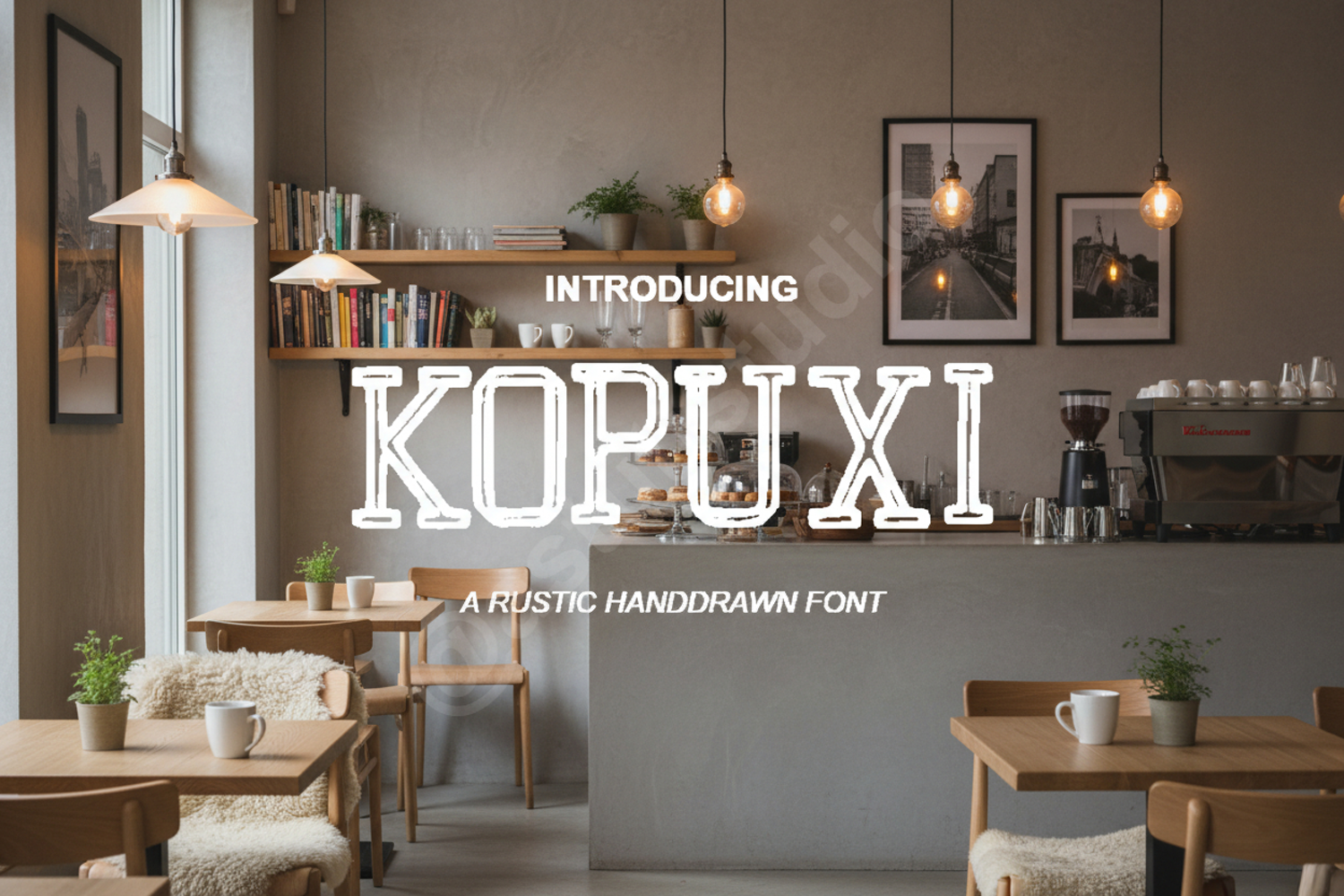
Kopuxi - Modern Sophisticated Sans-Serif Typeface
Kopuxi
Kopuxi is a premium, high-end sans-serif font designed to bring a touch of modern sophistication to any project. With its clean lines and balanced proportions, Kopuxi offers a versatile aesthetic that bridges the gap between contemporary minimalism and timeless elegance. Whether you are crafting a luxury brand identity or a sleek digital interface, this font provides the professional edge your work deserves.
Kopuxi is perfectly suited for a wide range of creative applications, including:
- Branding and Identity Design: Create memorable logos and corporate stationery.
- Editorial Layouts: Ideal for high-fashion magazines and lookbooks.
- Web and UI Design: Enhance user experience with clear, legible typography.
- Social Media Graphics: Stand out on Instagram, Pinterest, and LinkedIn.
- Packaging Design: Add a premium feel to product boxes and labels.
- Advertising: Craft compelling headlines for print and digital campaigns.